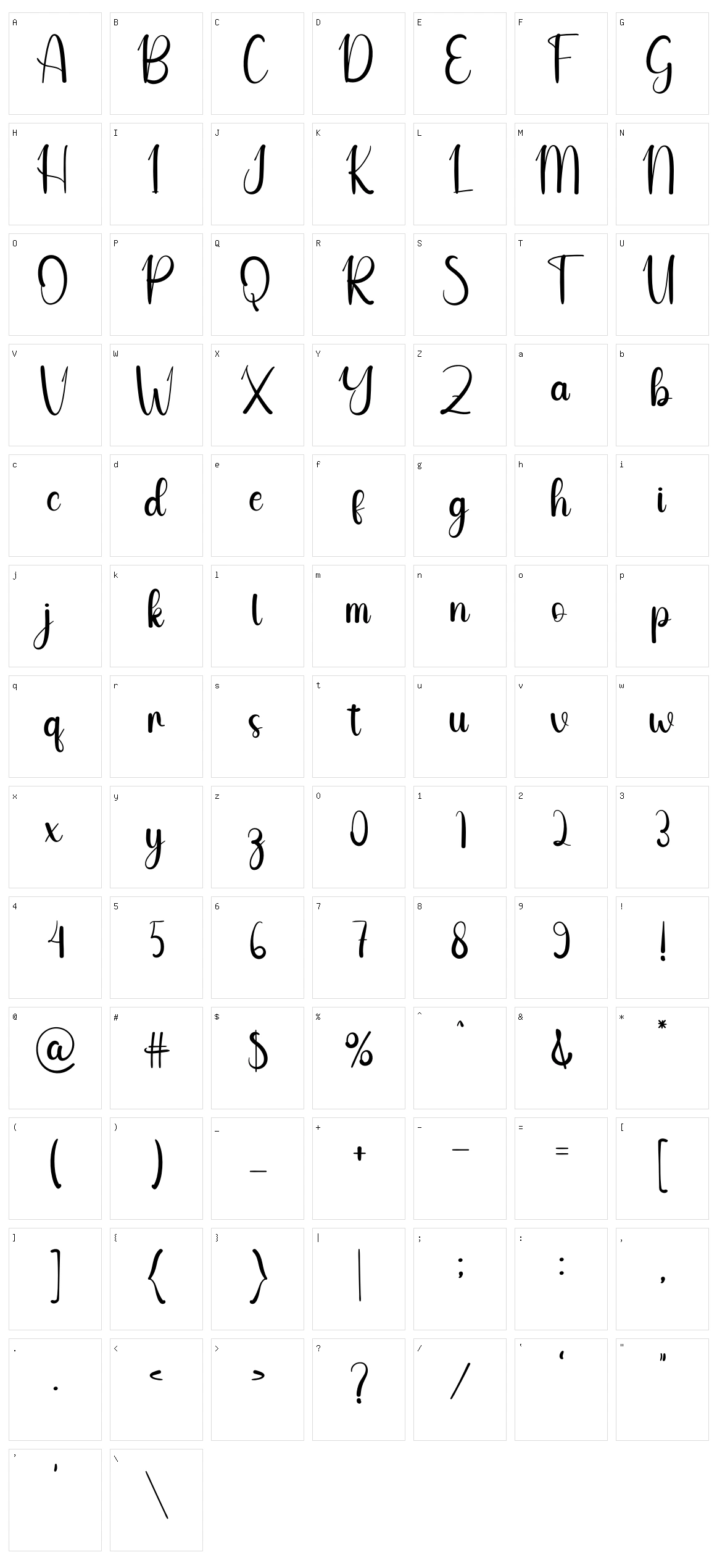
The free font Saturday Christmas is carefully designed by Scratchones, showcasing a thoughtful balance of creativity and usability and falls under the Script font style. When you download the ZIP file, it contains only 69.27 KB of font files, making it lightweight and quick to download. Please review the license details below to understand permitted usage and distribution rights. If license information is not available, we recommend using this font for personal projects only or contacting the author directly for commercial usage permissions.